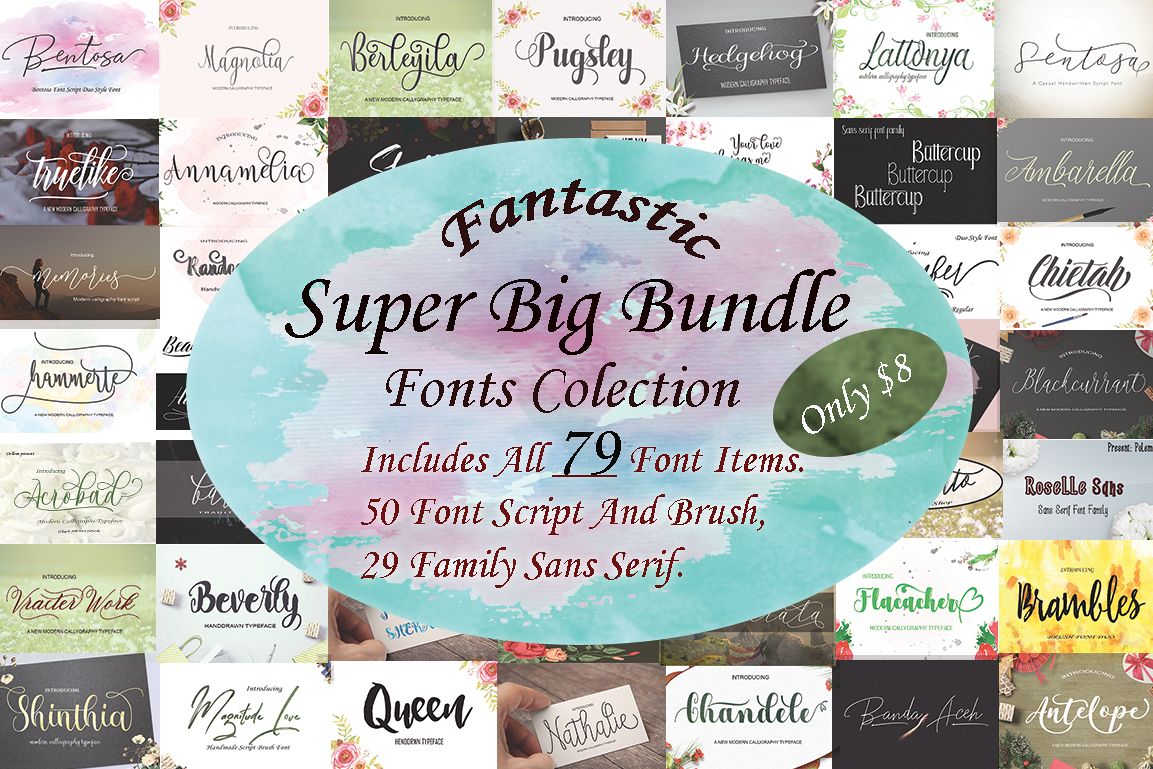
Fantastic is a classic and simple handwritten script, created in a random and free style.
It is suitable for logotype, headline font, in corporate identity, brand identity, apparel industry, poster, music, movie, game, magazine, book, comic, cartoon, YouTube, Instagram, website, or any of your creative design projects.